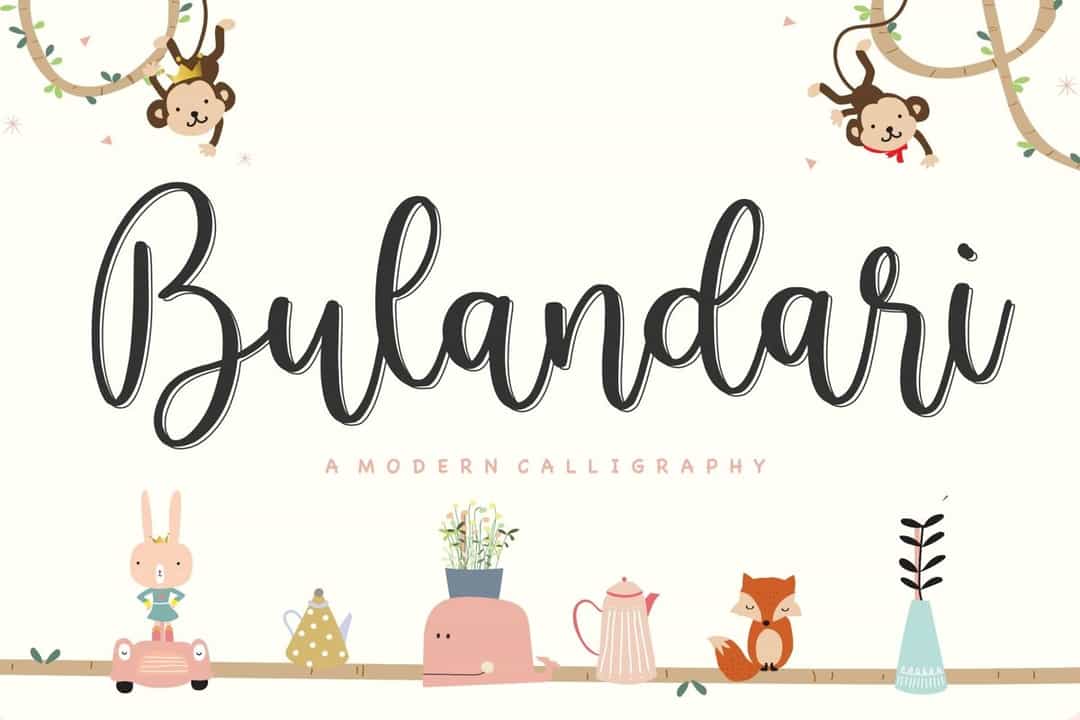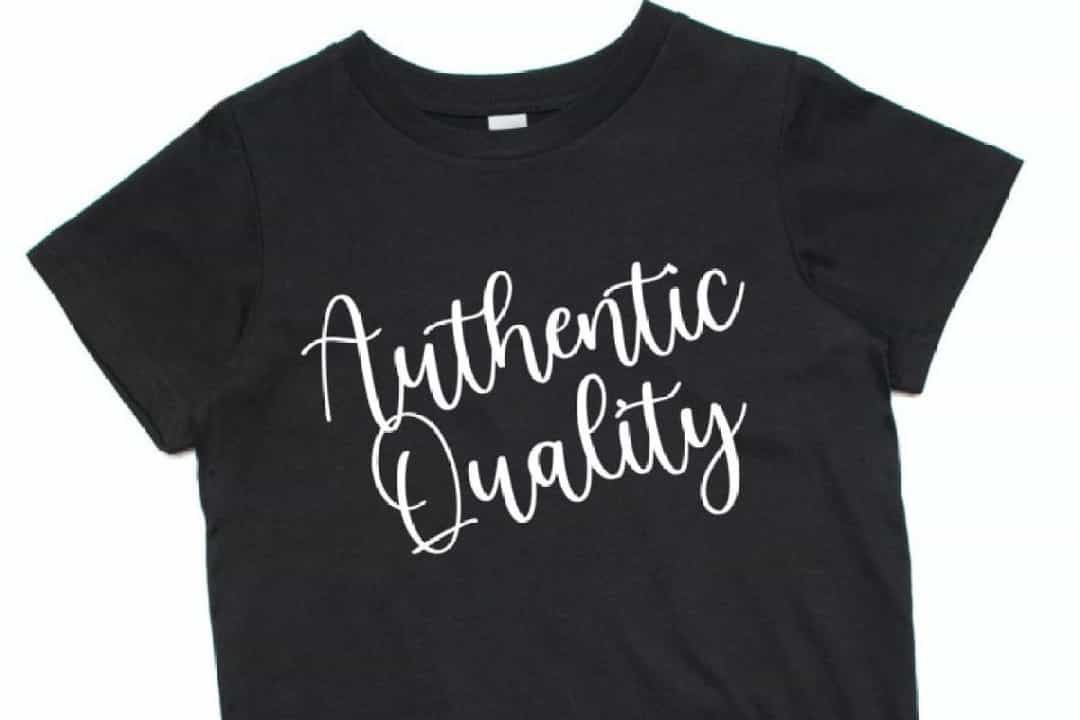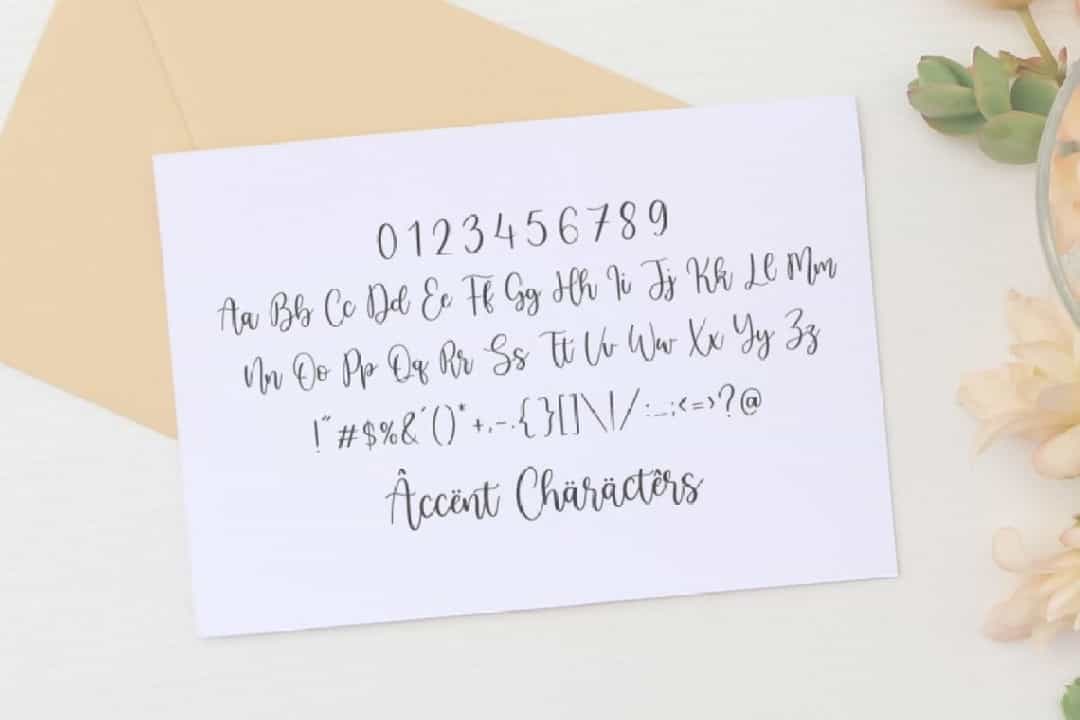
Discover Bulandari Modern Handwritten Font, part of the Calligraphy Handwritten Script collection—a versatile and unique font perfect for adding a personal touch to your projects. Download it for free and enjoy crafting designs with style, from invitations to social media posts. This font is available exclusively for personal use, giving you the freedom to create without limits. Unlock your creativity with Bulandari Modern Handwritten Font today!
Bulandari is an elegant handwritten script font. it is ideal for packaging of products, branding projects, magazines weddings, social media or simply to convey words above the background. The font is compatible with TTF, Bulandari also multilingual support.